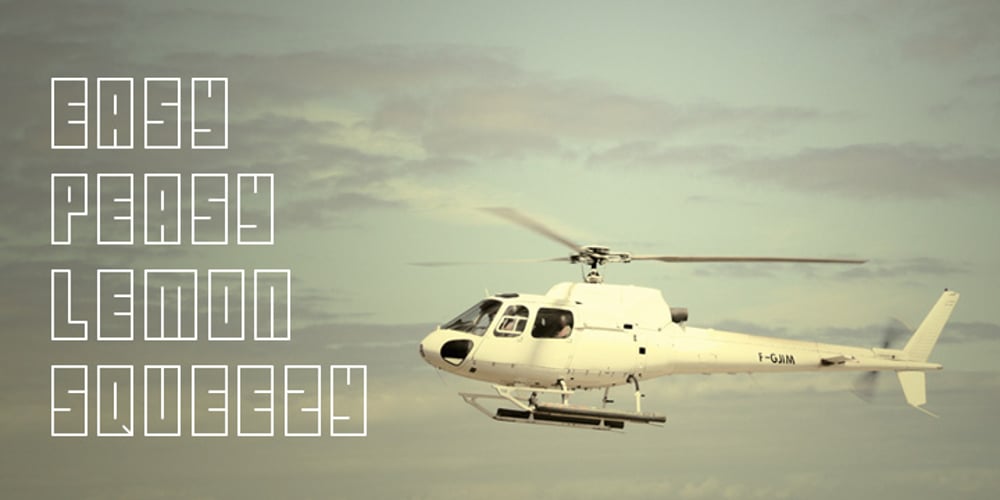
EasyPeasyLemonSqueezy
EasyPeasyLemonSqueezy font
EasyPeasyLemonSqueezy Font Family was designed by Tim Kowalewski and published by lgtm. EasyPeasyLemonSqueezy contains 1 styles and family package options. There is an addiction to symmetry. When I draw, when I write, when I take pictures, when I design. So in this font. Best use in Headlines.